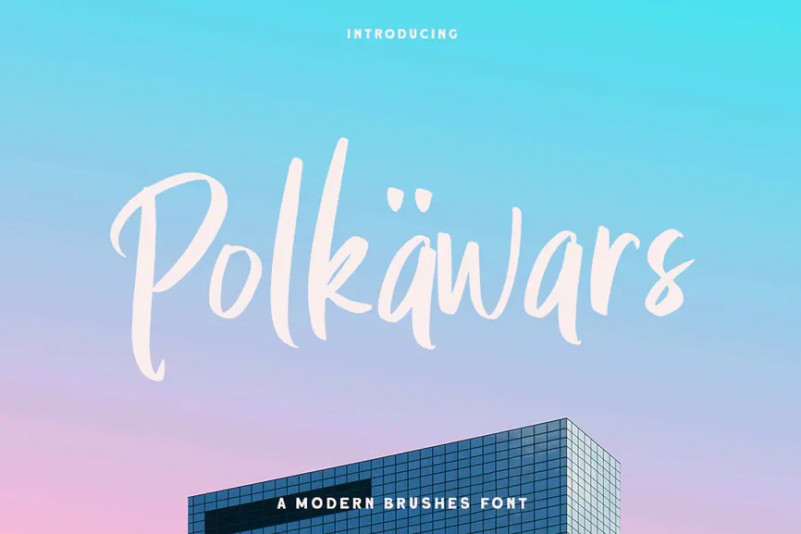
Polkawars Font
Introducing, Polkawars. A simple and casual sans serif typeface. This item is really perfect for you who needs a typeface for especially logotype, apparel, invitation, branding, packaging, advertising etc. This typeface has